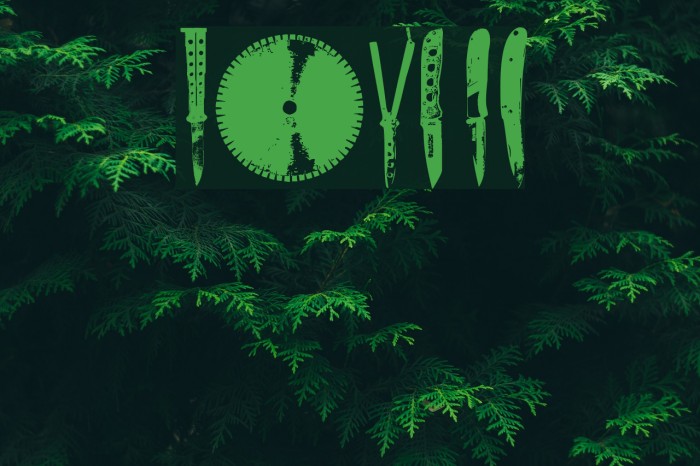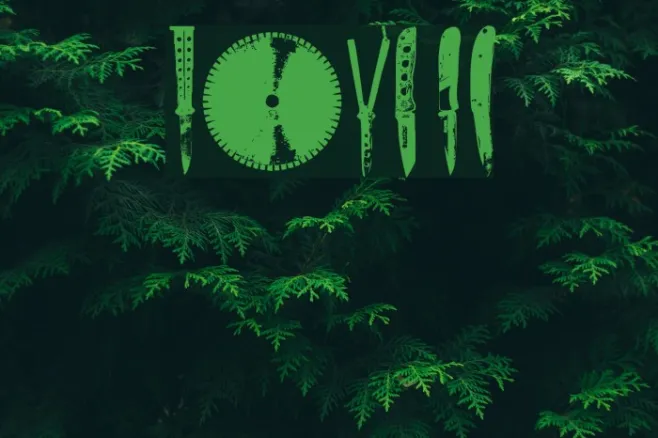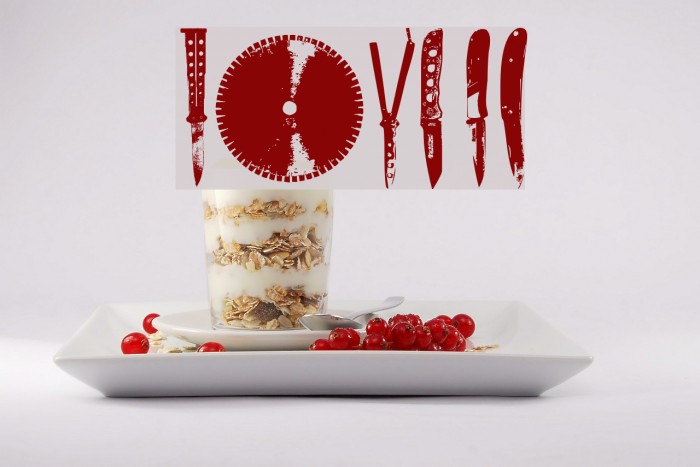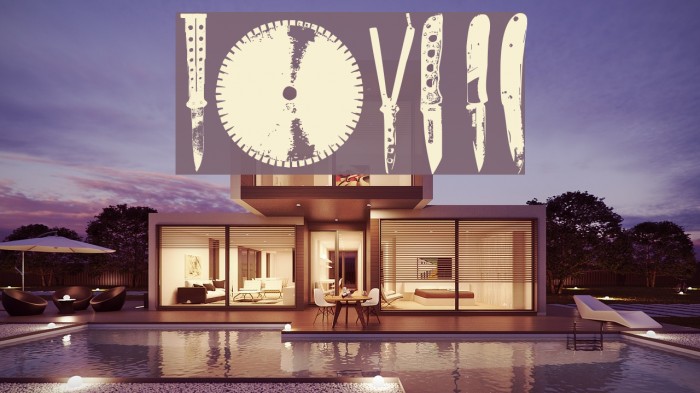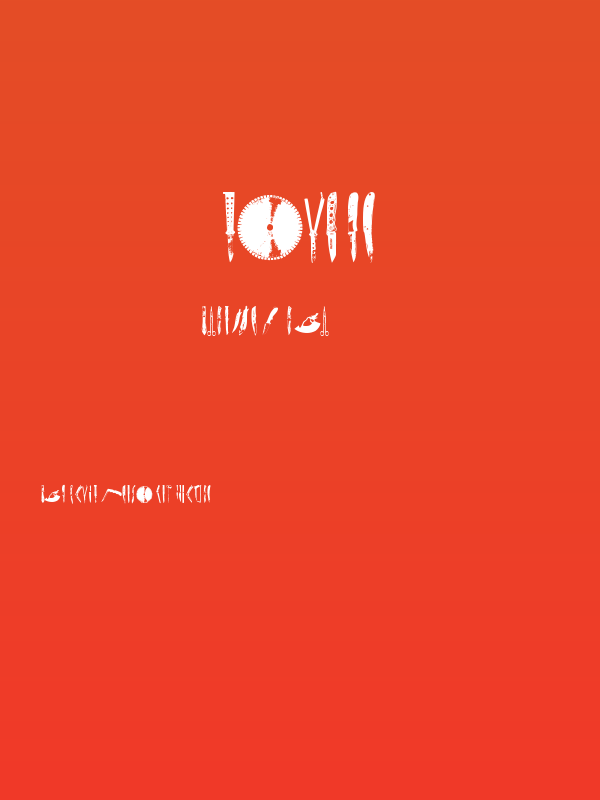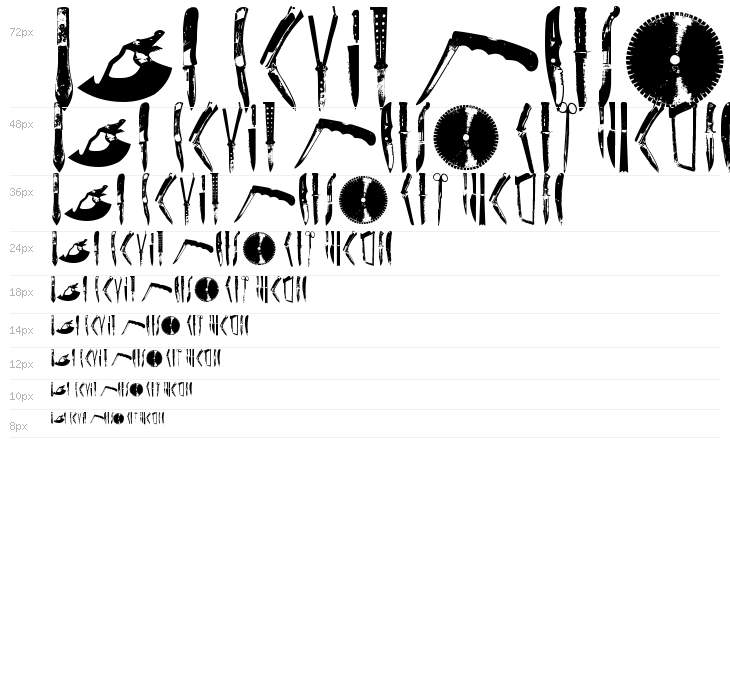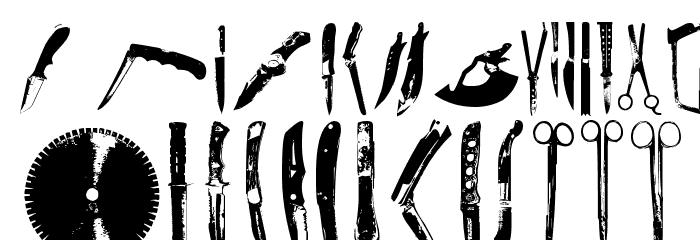
Knives Font
Knives Description
A highly decorative and illustrative font where each character is represented by detailed silhouettes of knives, scissors, and other bladed tools, with ornate swashes for lowercase letters and symbols. The design is bold and striking, making each letter a unique graphic element rather than a traditional typographic form.
| Overall Style | Decorative, Thematic, Edgy |
| Use Case | Logos, Headlines, Posters, Themed Events |
| Proposed Projects | Horror movie posters, Halloween invitations, themed restaurant branding, edgy graphic design projects, novelty t-shirts. |